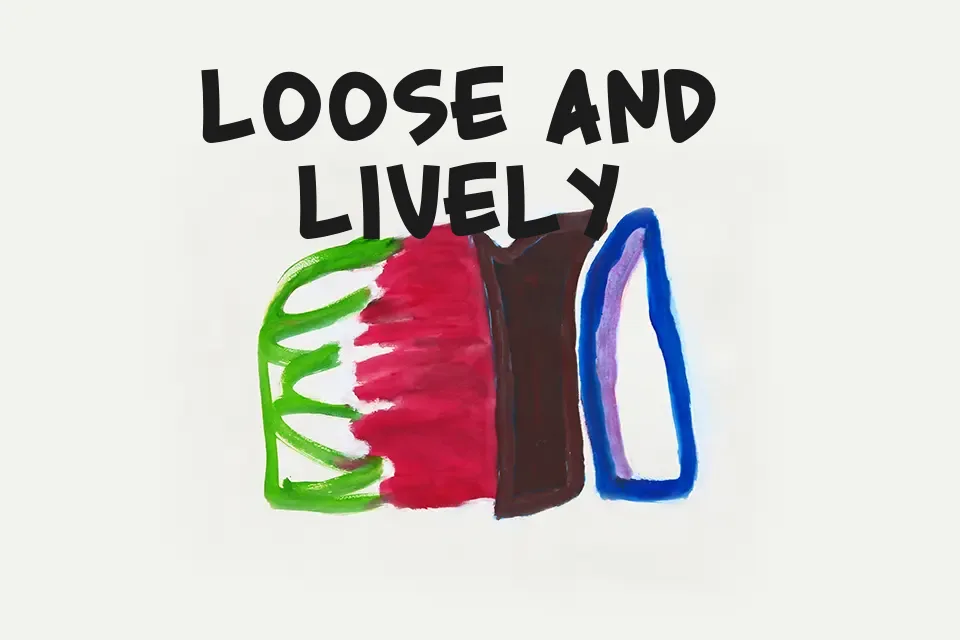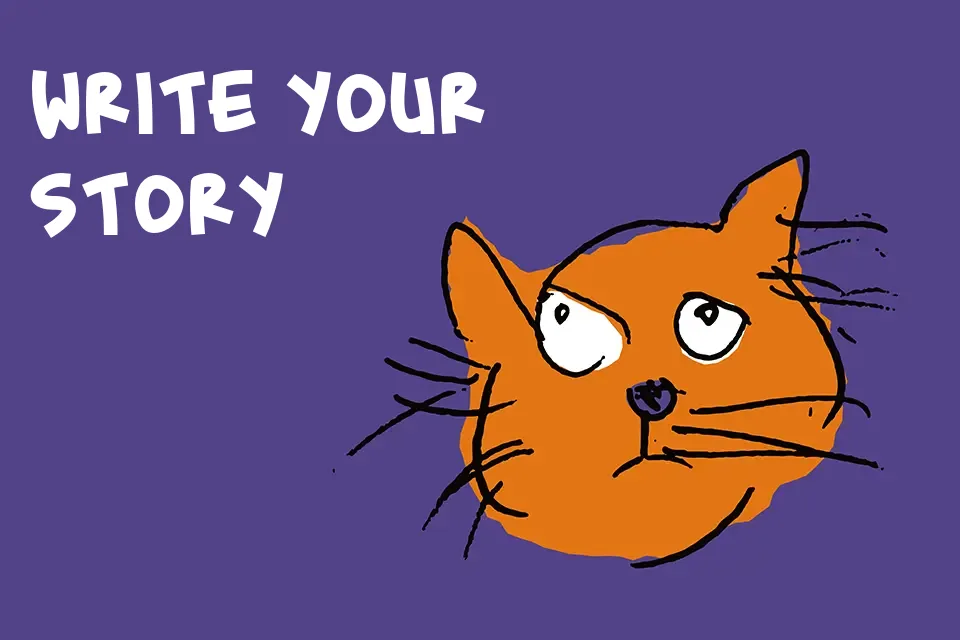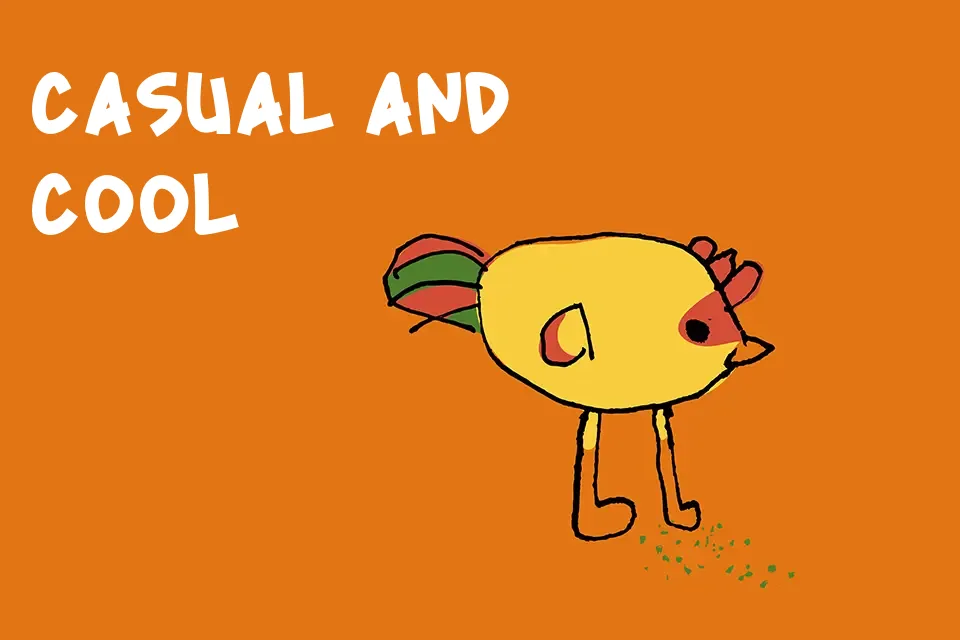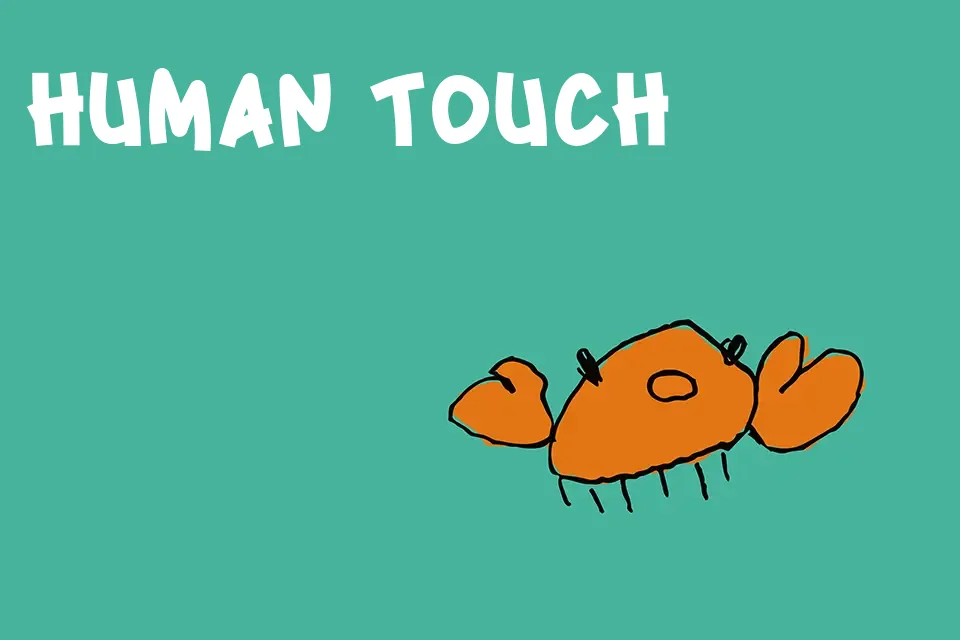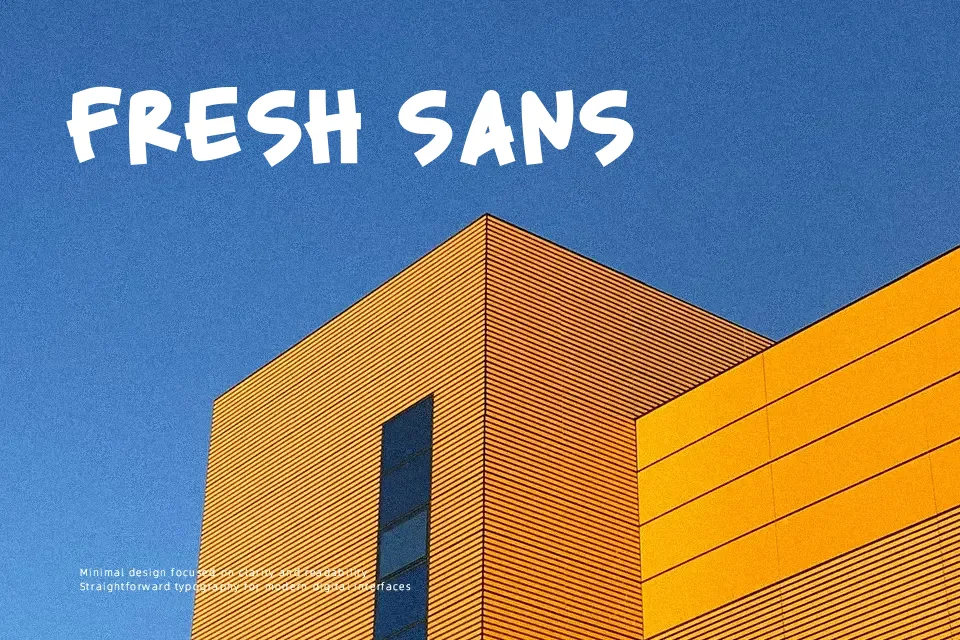
Baby Pink Font
Designed by Arutype Studio
Soft, rounded letterforms and loose stroke rhythm give Baby Pink its signature bubbly quality — each character leans into casual charm rather than precision. The spacing feels airy, which works well at larger display sizes but becomes a liability in tight layouts or multi-line text blocks. It fits well on birthday invitation headers, baby shower graphics, and Instagram story overlays where the youthful tone does the heavy lifting. That said, the free DaFont release is a demo with an incomplete character set and limited kerning, so expect some spacing inconsistencies at smaller sizes. Designers who need multilingual support or refined outlines will need the premium version. Works when the goal is warmth and approachability — falls flat in anything requiring structure or authority.
Best For:- Kids’ product packaging and nursery decor labels
– Birthday invitation headers and baby shower event graphics
– Beauty and skincare social media thumbnails
– Candy or lifestyle brand logo treatments
Not Ideal For:- Body text or multi-line paragraph copy
– Corporate, legal, or professional documents
– Small-size applications where kerning precision matters
– Designs requiring a complete multilingual character set (demo version limitation)
Perfect for branding, invitation, and kids, with a cute and cartoon style.